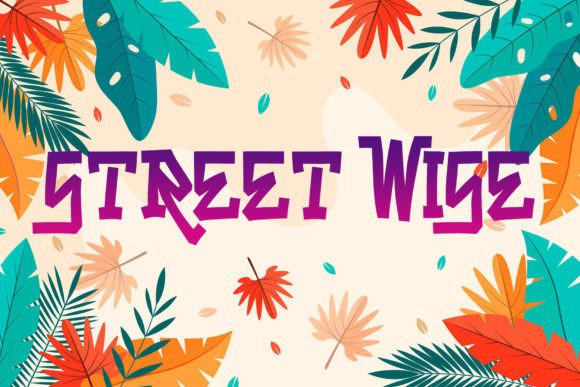
Introducing Street Wise Font - A Journey Through Urban Art and Creative Expression
Embark on a typographic adventure with Street Wise Font, a display font that echoes the vibrancy and energy of urban street art. This captivating font exudes a summery charm, instantly transforming your designs into captivating works of art.
With its playful and bright personality, Street Wise Font invites you to explore a world of creativity and expression. Its tropical and jungle-inspired aesthetics bring a refreshing touch to any project, whether you're designing posters, social media graphics, or eye-catching logos.
Unleash your imagination and let Street Wise Font guide you through the bustling streets of creativity. Its bold and distinctive characters add an edge to your designs, making them stand out from the crowd.